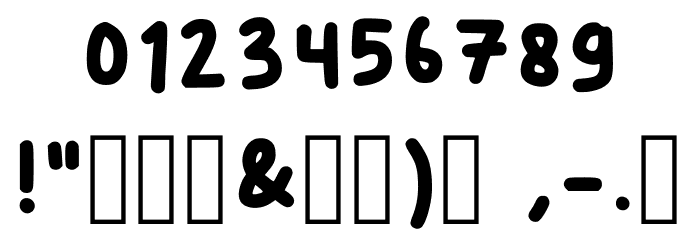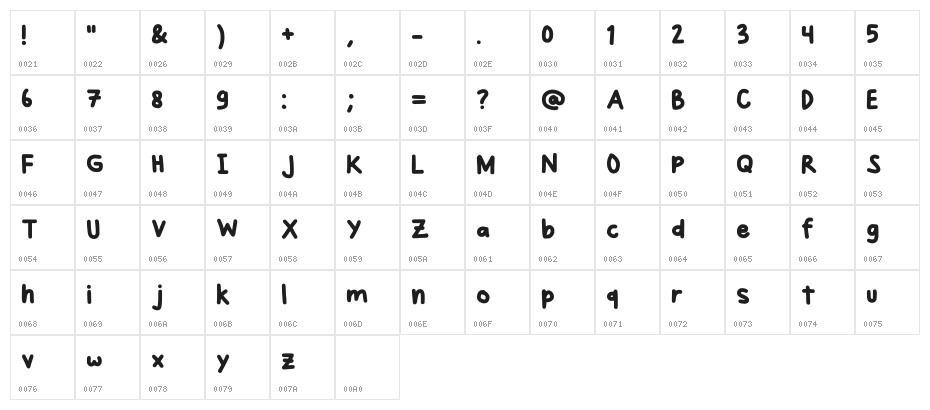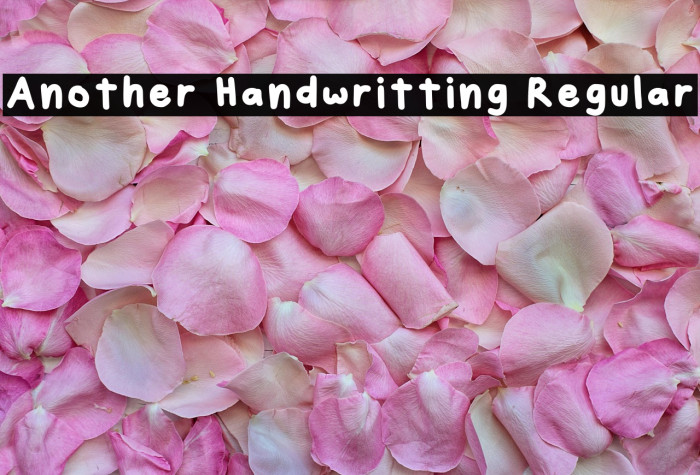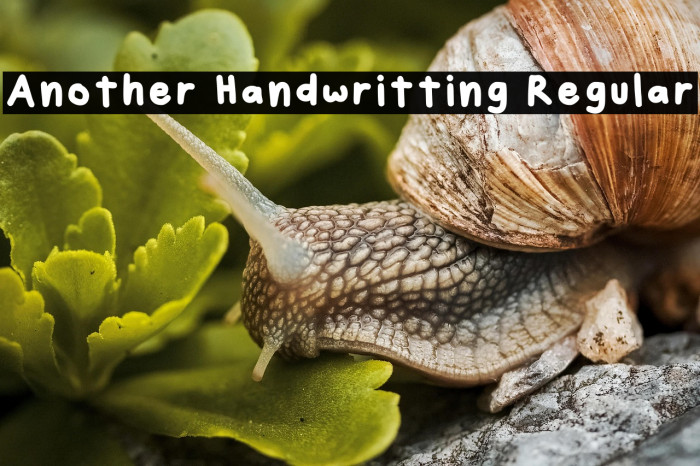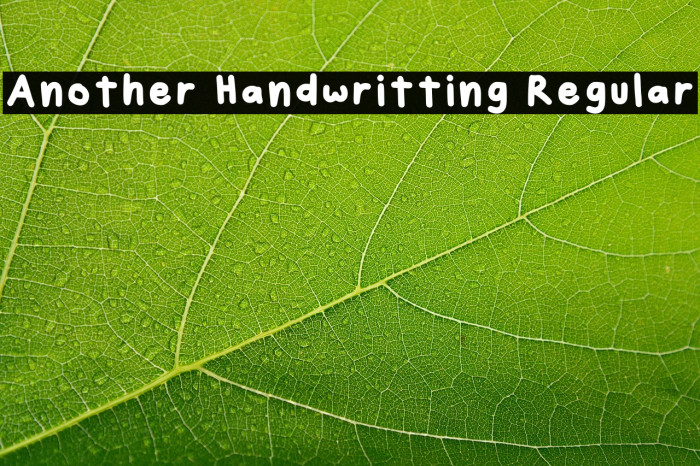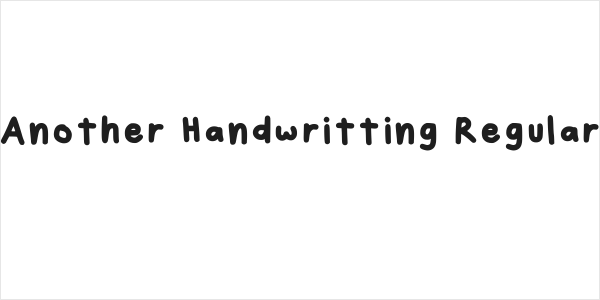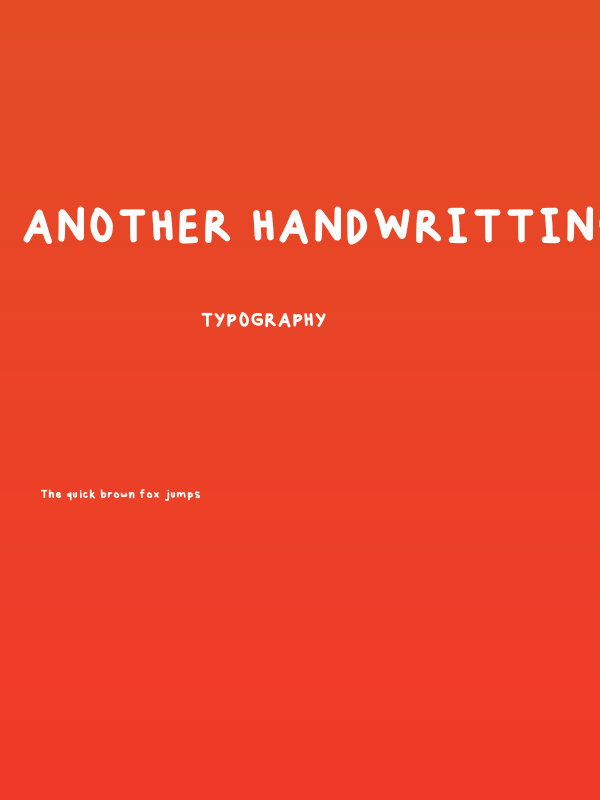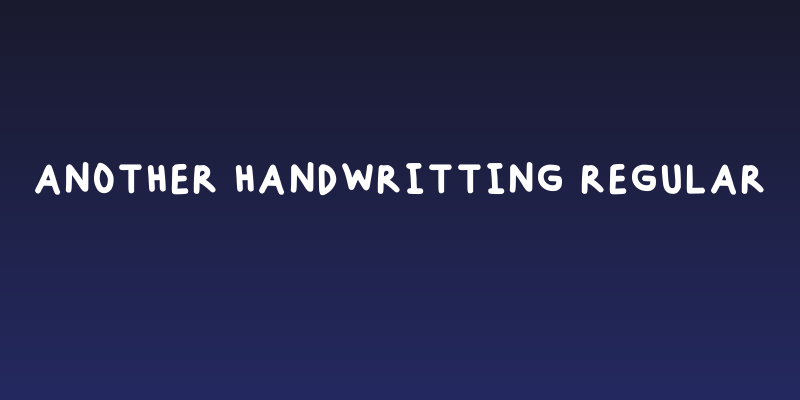
Another Handwritting Regular Font
Another Handwritting Regular Description
This font exhibits a playful and casual handwritten style, characterized by its rounded and slightly irregular letterforms. The strokes are consistent in thickness, giving it a uniform appearance while maintaining a personal touch. The uppercase and lowercase letters are well-balanced, with a friendly and approachable aesthetic. The numerals and special characters are designed to match the overall style, making it versatile for various uses. Its informal nature makes it suitable for projects that require a human touch, such as personal invitations, greeting cards, or children's book illustrations.
| Use Case | Headlines, Informal text, Personal projects |
| Proposed Projects | Ideal for personal invitations, greeting cards, children's books, and informal branding. |